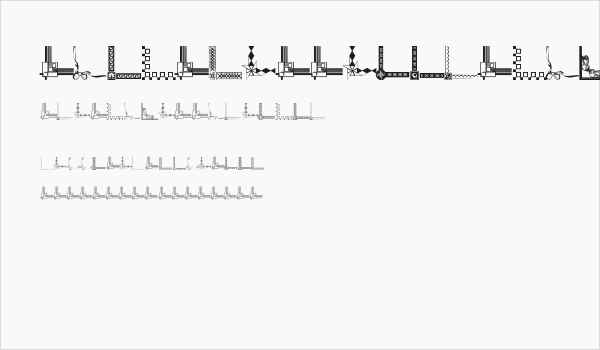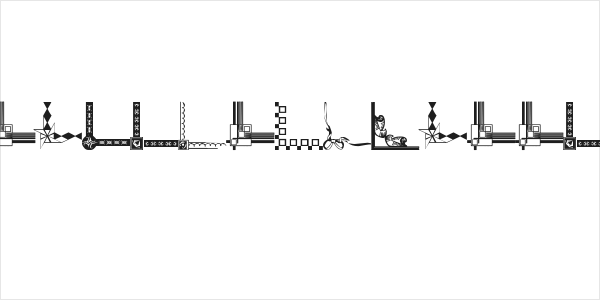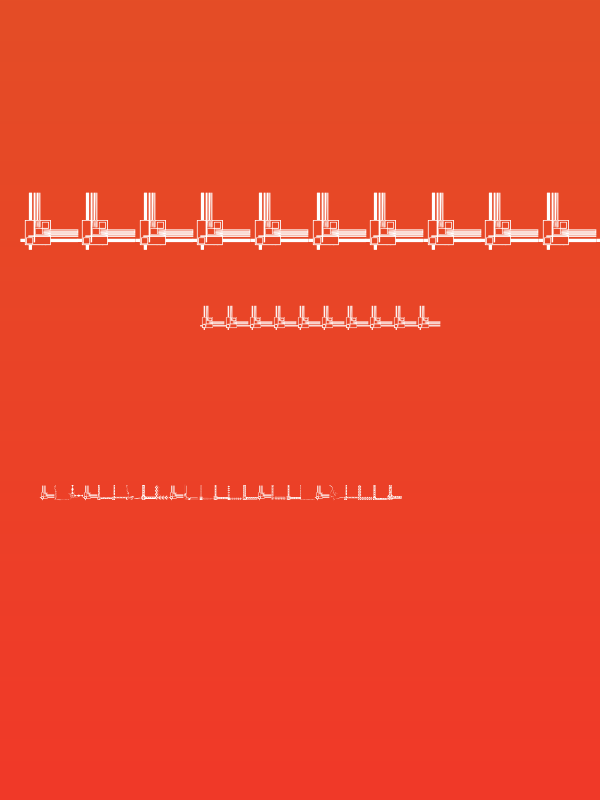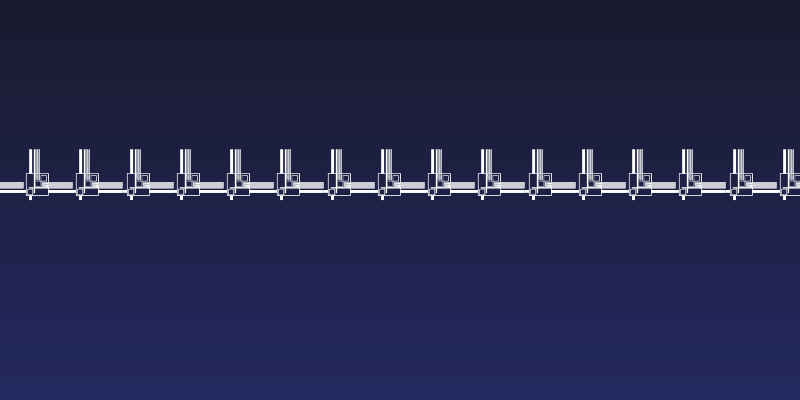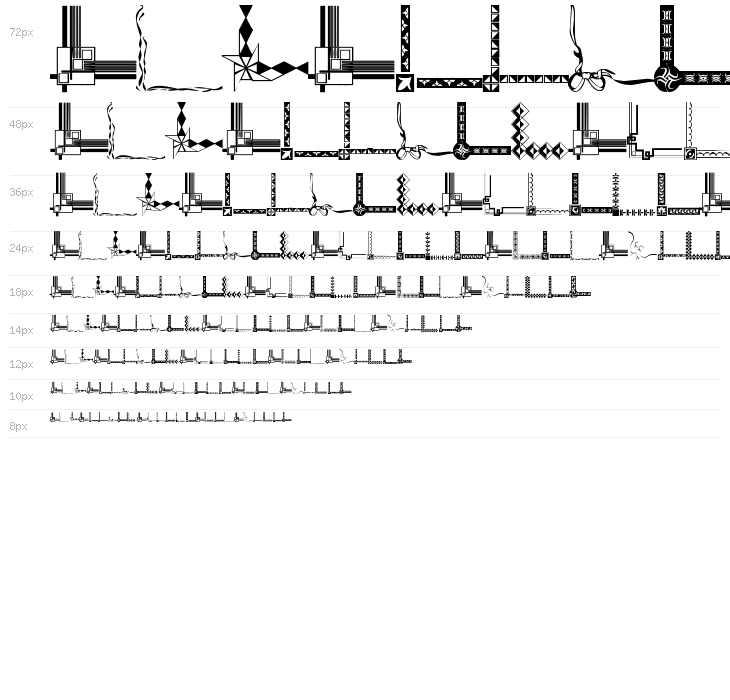
Vintage Decorative Corners 28 Font
Vintage Decorative Corners 28 Description
A highly decorative and ornamental set of corner and border glyphs featuring intricate geometric and vintage-inspired patterns, with each character forming a unique corner or border segment. The designs are complex, with a mix of solid and fine lines, flourishes, and embellishments, suitable for creating frames or decorative dividers.
| Overall Style | Vintage, Decorative |
| Use Case | Borders, Frames, Decorative accents |
| Proposed Projects | Invitations, certificates, decorative frames, vintage-themed posters, scrapbooking, book covers. |